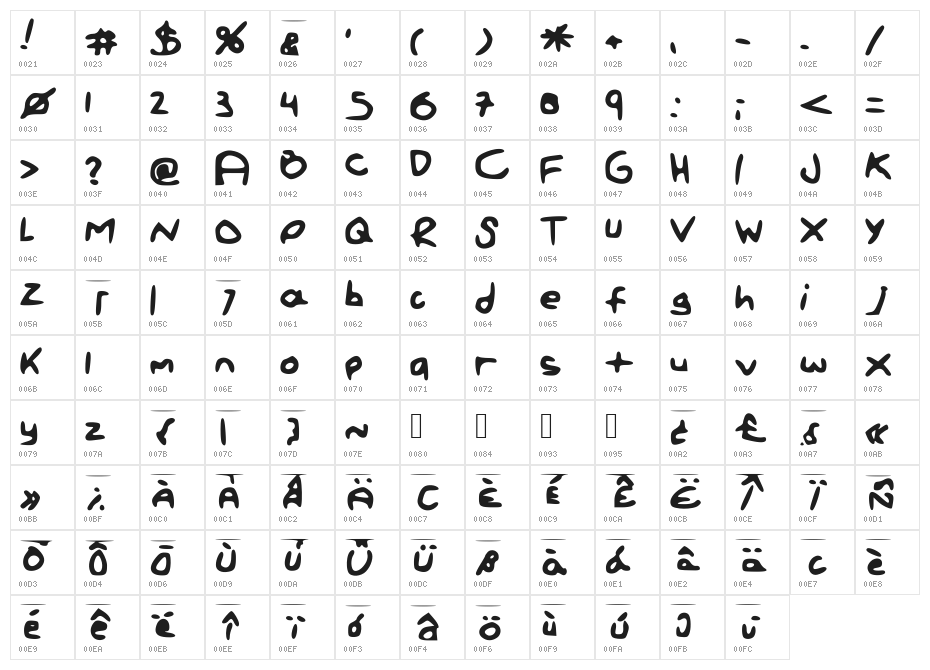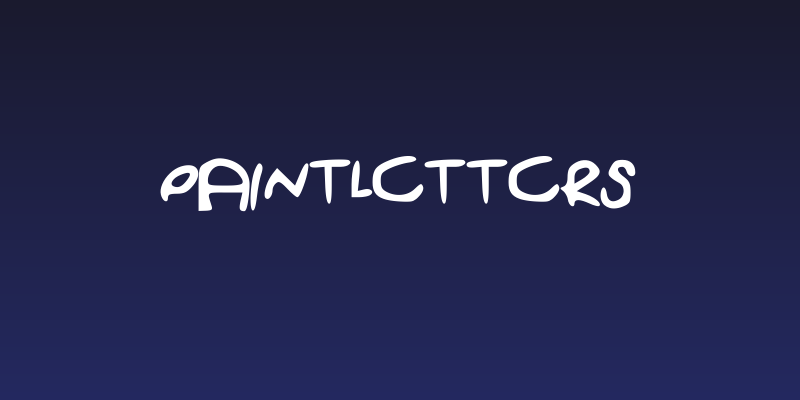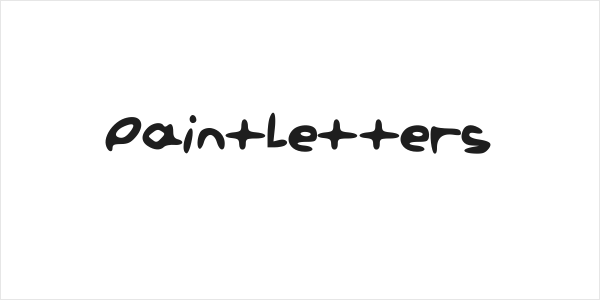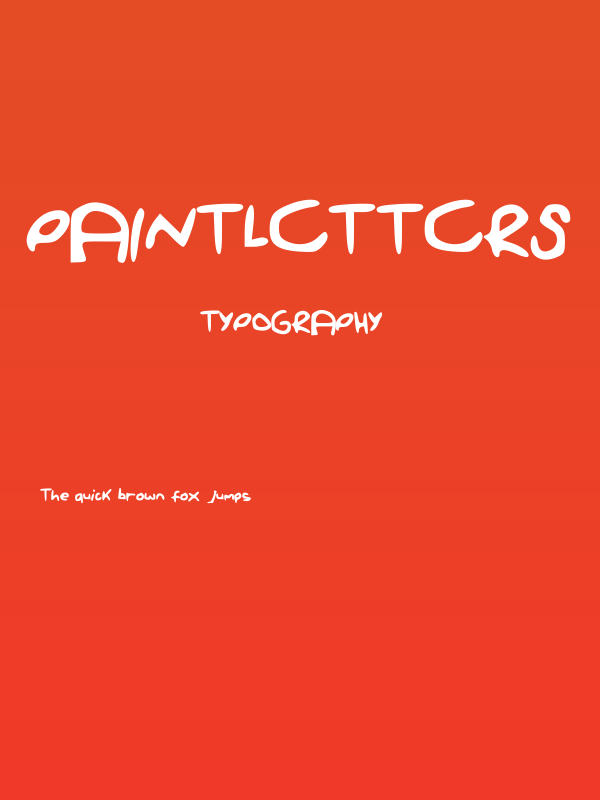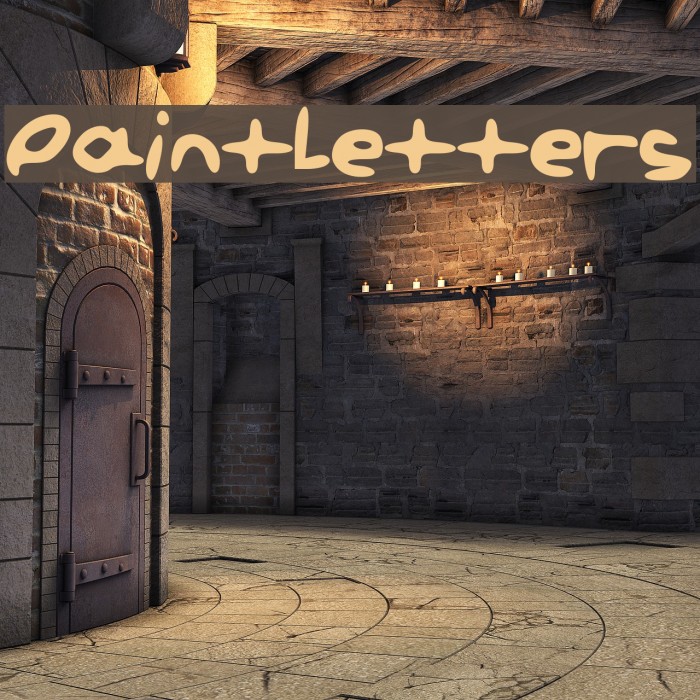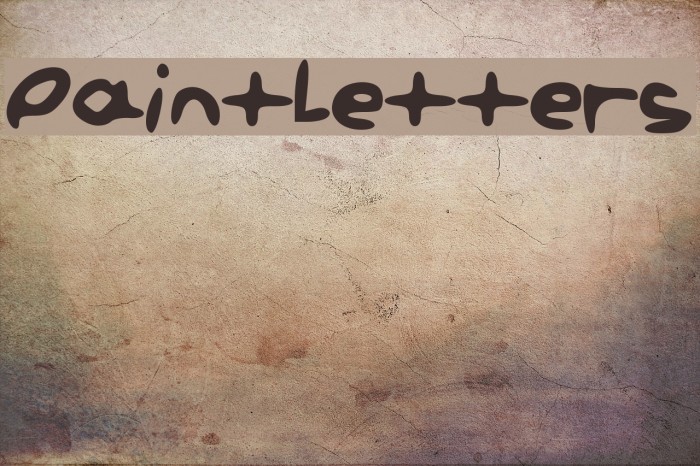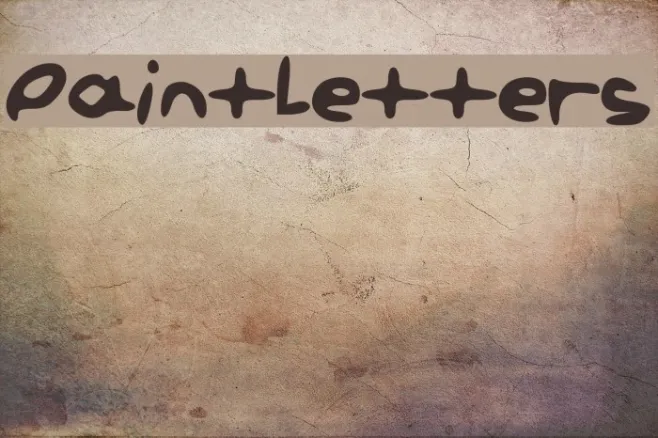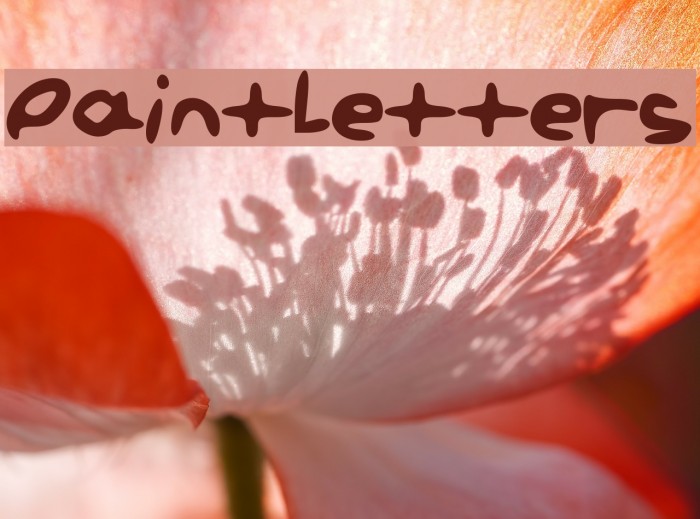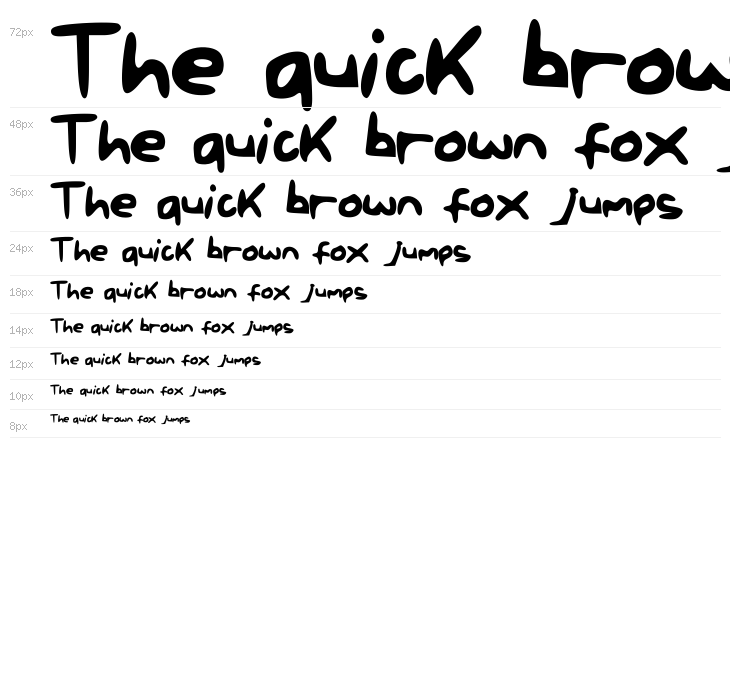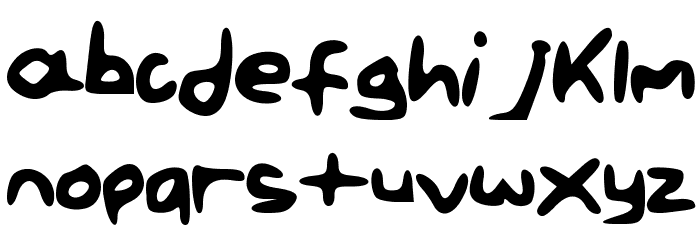
PaintLetters Font
PaintLetters Description
This font features a playful and bold handwritten style, characterized by its thick, rounded strokes and irregular shapes. The letters have a casual, artistic flair, reminiscent of brush or paint strokes. The uppercase and lowercase letters maintain a consistent style, with a slightly exaggerated and whimsical appearance. Numbers and special characters follow the same design ethos, adding to the font's cohesive look. The overall impression is one of creativity and informality, making it suitable for projects that require a personal touch.
| Proposed Projects | Ideal for children's book covers, playful branding, creative posters, and artistic invitations. |